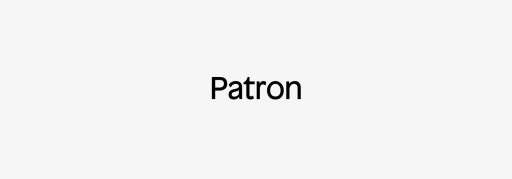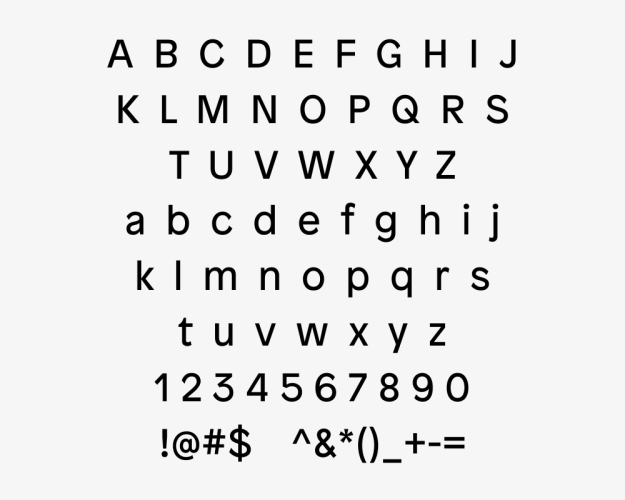
Patron Font
Patron Font brings bold style to your designs. This typeface mixes two classic design ideas. Timo Gaessner made it in 2014. Moreover, it combines clean lines with dynamic curves. The font has 12 different styles. You can use it for logos and brand work. Furthermore, the tall letters make text easy to read. The stroke endings add unique character. Additionally, it works great for modern projects. You can create fresh, eye-catching designs. The balance feels different and exciting. Therefore, your work will stand out from others.
This font is perfect for creative branding. Many designers love it for packaging work. Consequently, it brings personality to any project. The style works well on screens and paper. Moreover, you can make bold headlines easily. In addition, body text looks smooth and clear. The letters pair well with other fonts. Therefore, it fits into complex design systems. Your brand will look modern and professional. As a result, clients will notice your unique style.